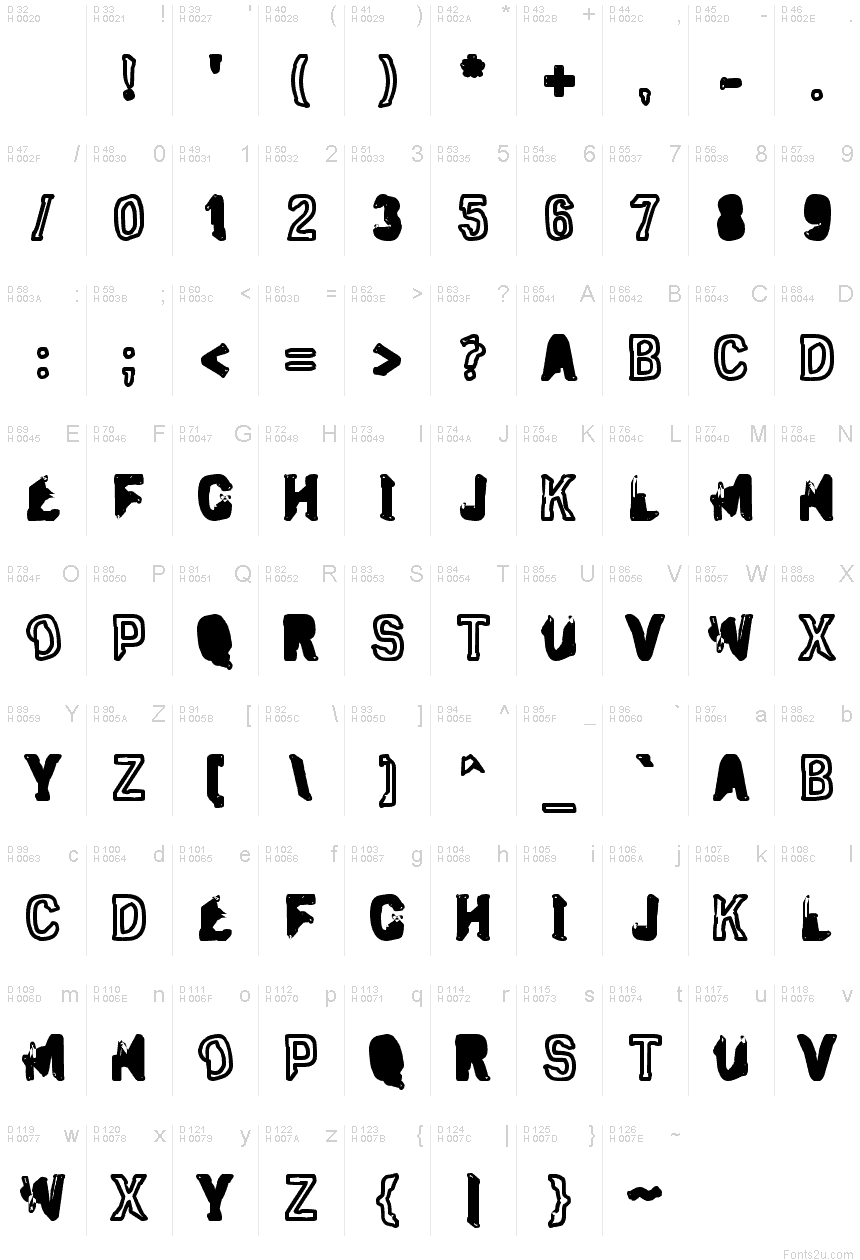
Eclipsed Moon Outline
Eclipsed Moon Outline font is a free distorted display typeface that looks like your letters are being swallowed by shadow. Chunky black silhouettes creep over hollow outlines, creating eerie gaps and flickers of negative space, as if words are half-lit by a dying moon. The result feels scratchy, chaotic, and cinematic—letters turn into silhouettes on a night sky, perfect when you want text that looks haunted rather than merely spooky.
Using Eclipsed Moon Outline, titles don’t just sit on the page—they loom. This free font shines on Halloween posters, horror movie covers, haunted house flyers, occult zines, dark fantasy game logos, and creepy YouTube thumbnails. Keep it big for maximum impact, then pair it with a plain, narrow sans serif for body text so the wild shapes stay readable and dramatic.